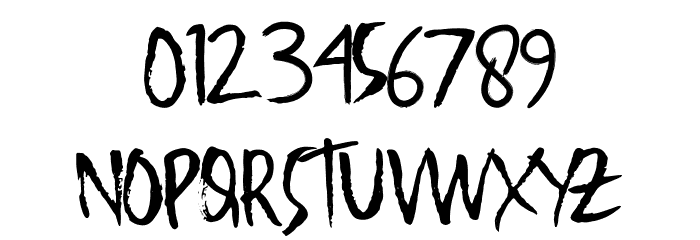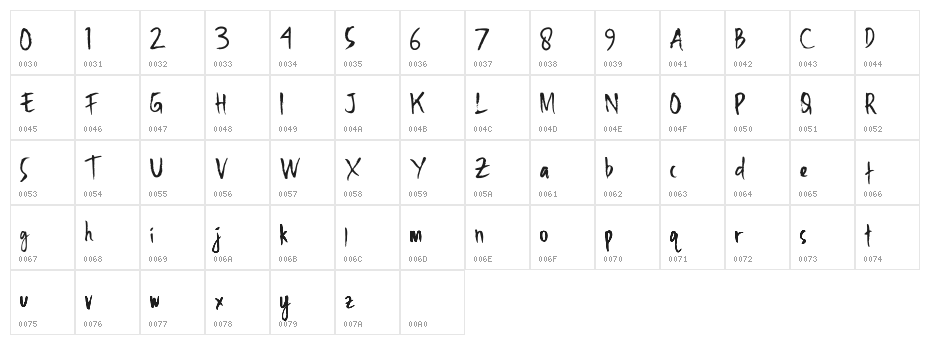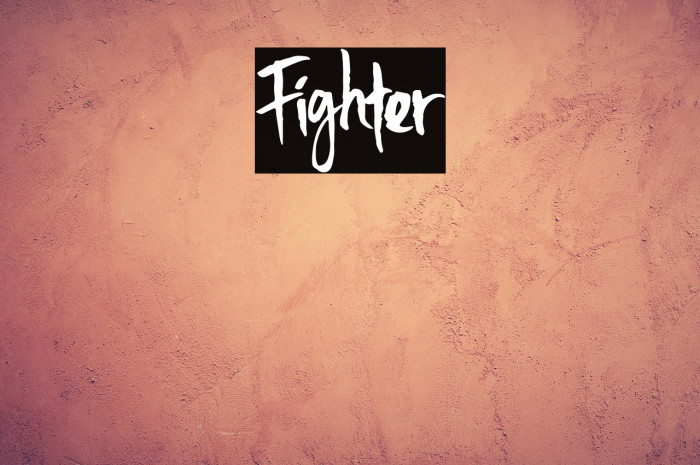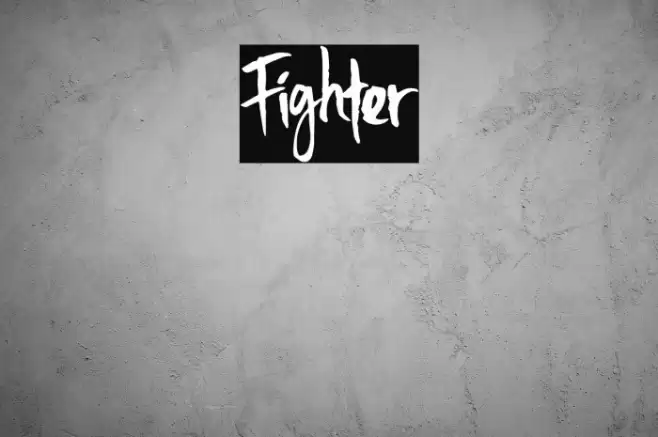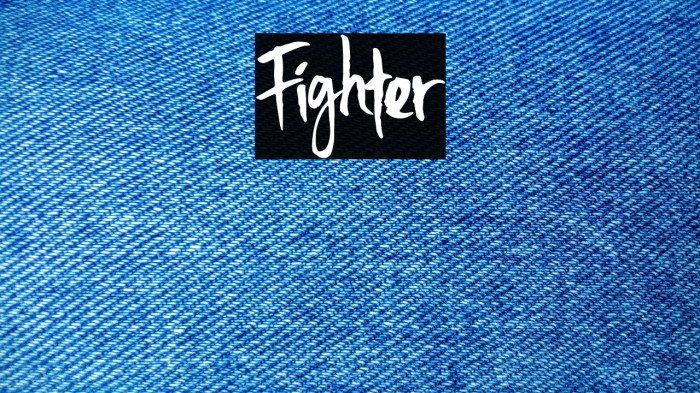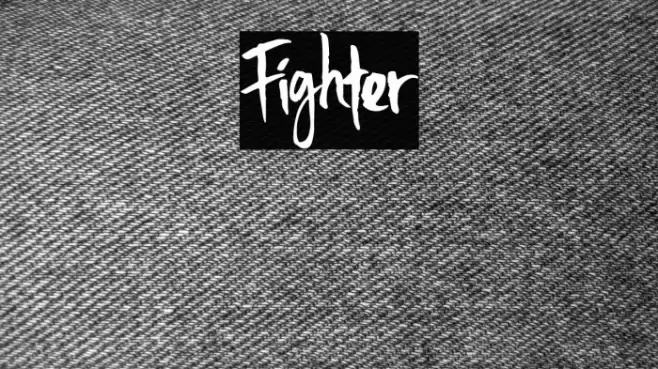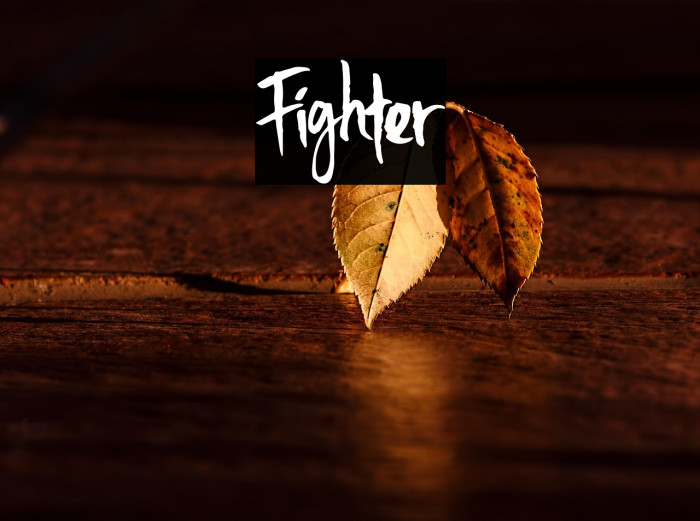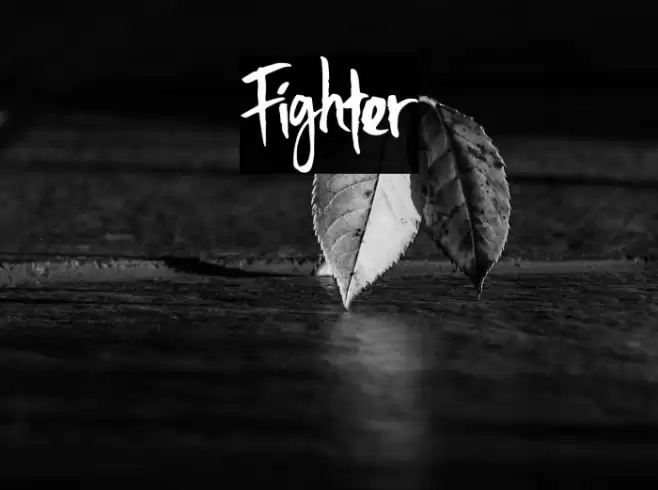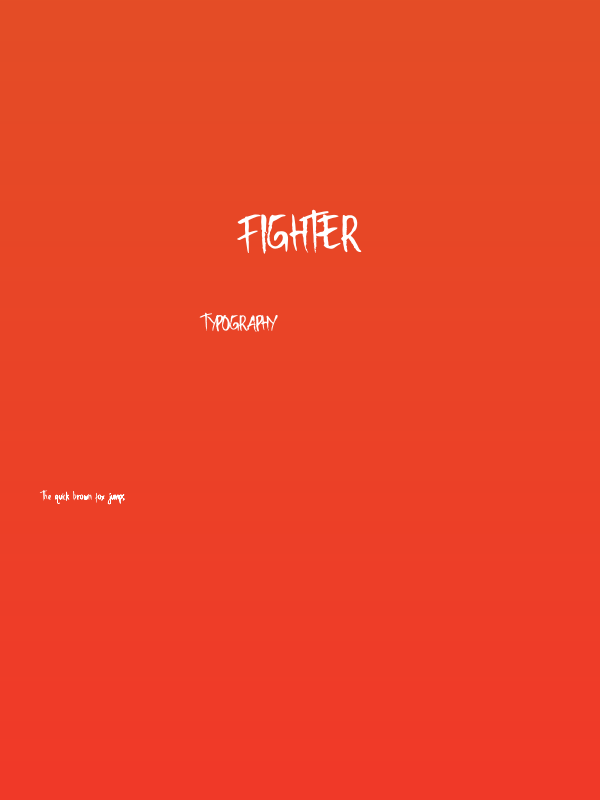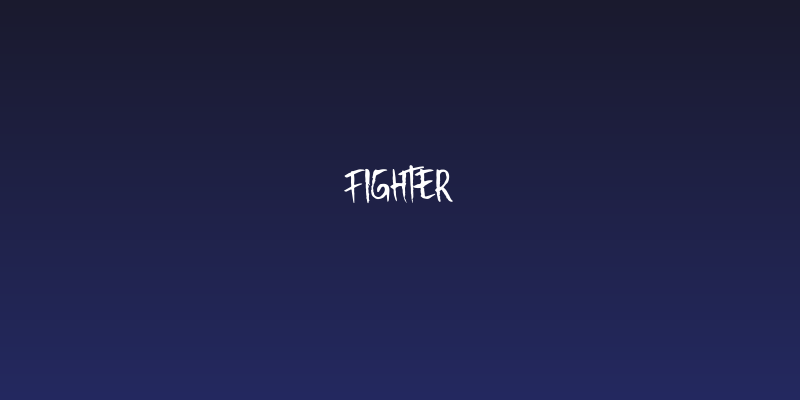
Fighter Font
Fighter Description
This font features a bold and dynamic brush style that exudes energy and movement. The strokes are uneven and textured, giving it a hand-painted appearance. The uppercase letters are tall and assertive, while the lowercase letters maintain a consistent flow with slightly exaggerated curves. Numbers and special characters follow the same expressive style, making the font suitable for impactful designs. The overall look is raw and artistic, perfect for projects that require a personal touch or a sense of urgency.
| Proposed Projects | Ideal for posters, album covers, branding, and any design needing a bold, artistic flair. |